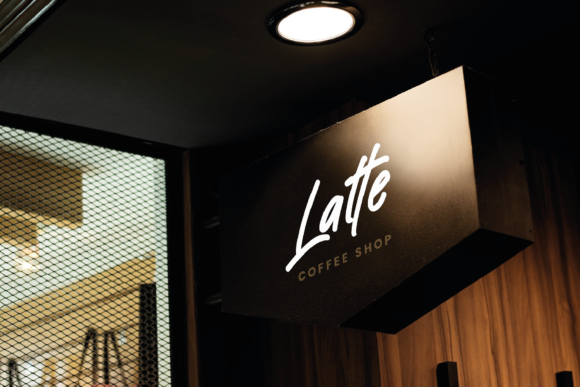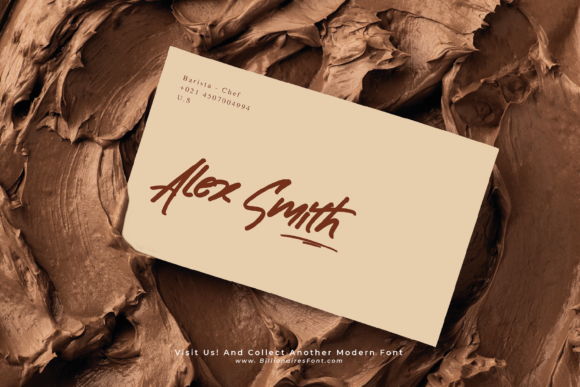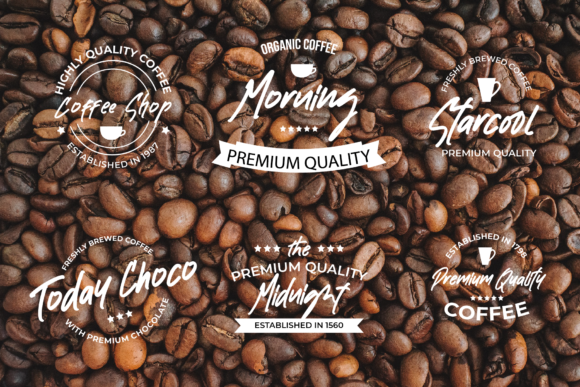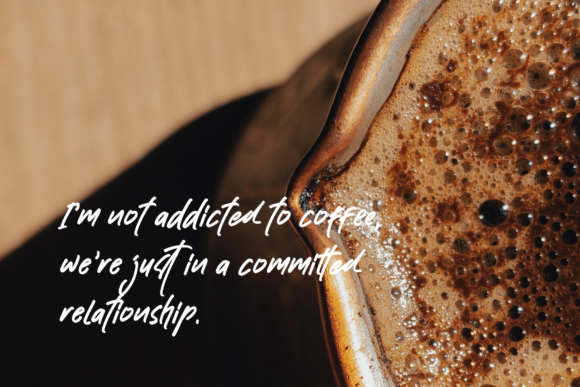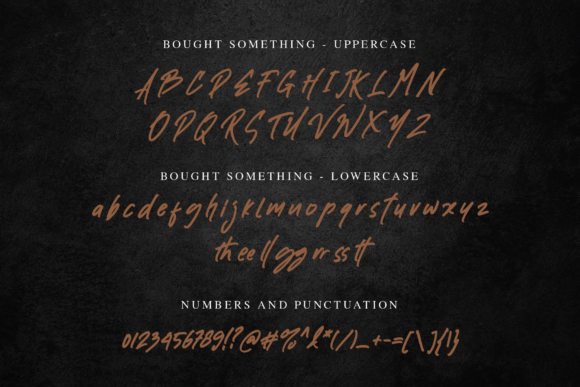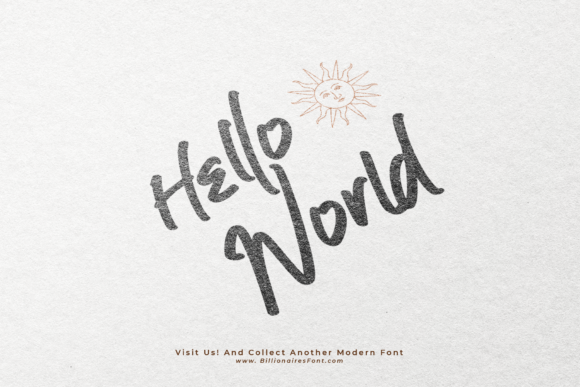
The Bought Something Font: A Quirky, Handwritten Gem for Creative Projects
Have you ever been in the middle of a design project, and suddenly, you’re stuck on finding the perfect font? I recall a recent experience where I was working on a craft project, and my client asked for a font that was “relaxed” and “handwritten.” After scouring through countless font libraries, I stumbled upon the Bought Something font. Its informal style and casual vibe instantly caught my attention, and I knew I had found the perfect fit.
An Honest Review of Bought Something Font
So, what makes Bought Something font so special? Let’s dive into the good stuff and some minor quirks.
- ✨ Simple, quirky, and adaptable handwritten style
- ✅ Informal and casual vibe, perfect for relaxed projects
- 💡 PUA encoded for easy access to glyphs and swashes
- 🎨 Highly versatile for various creative applications
- 🤔 Limited use for formal or professional projects due to its casual nature
- ⚠️ May not be suitable for very small font sizes due to its handwritten style
The Story Behind Bought Something Font
The Bought Something font was created with the intention of providing a unique, handwritten font for creative projects. Its designer aimed to craft a font that was both quirky and adaptable, perfect for adding a personal touch to designs. Although the exact story behind the font’s creation might be unknown, its informal style and casual vibe make it an excellent choice for crafty and artistic endeavors.
| Font Name | Bought Something Font |
| Author | aldedesign |
Q: What is PUA encoding, and how does it benefit the Bought Something font?
PUA (Private Use Area) encoding allows for easy access to glyphs and swashes within the font. This means you can effortlessly use the font’s unique features to enhance your designs.
Q: Is Bought Something font suitable for body text?
Due to its handwritten nature, Bought Something font might not be ideal for large blocks of body text. However, it can be used for short paragraphs, titles, or headings.